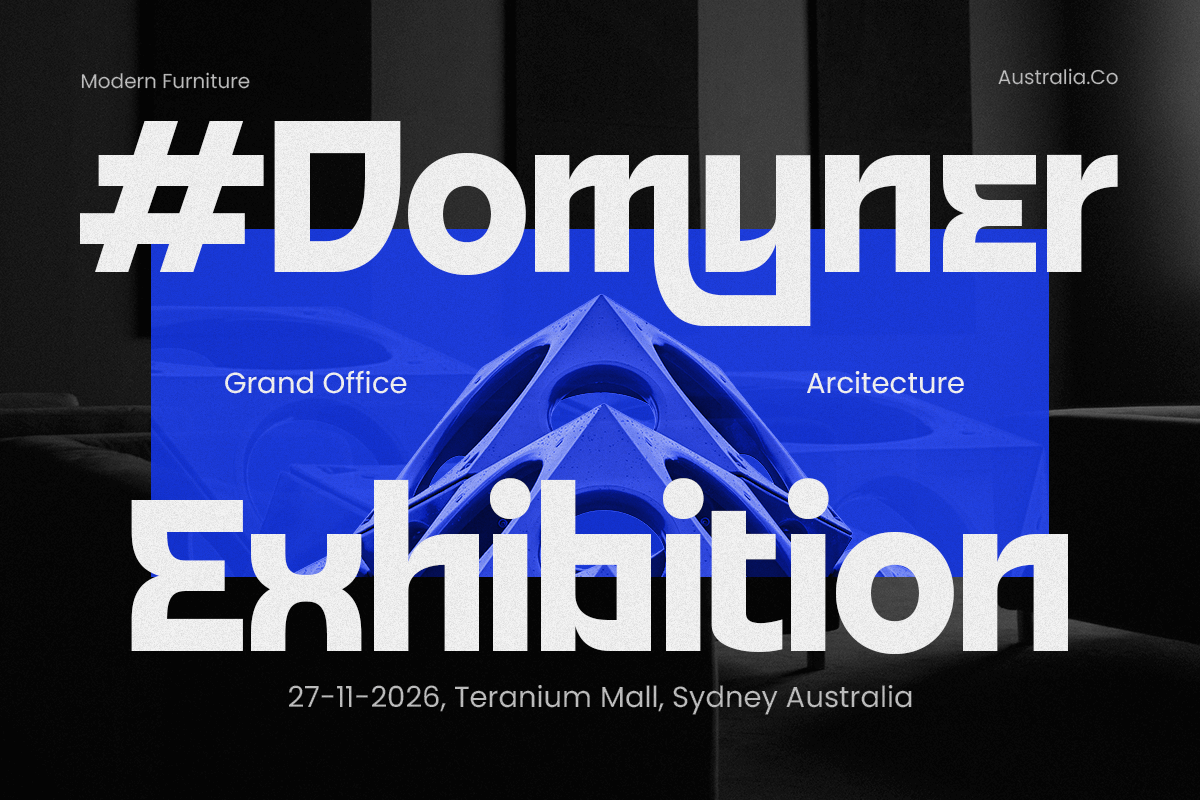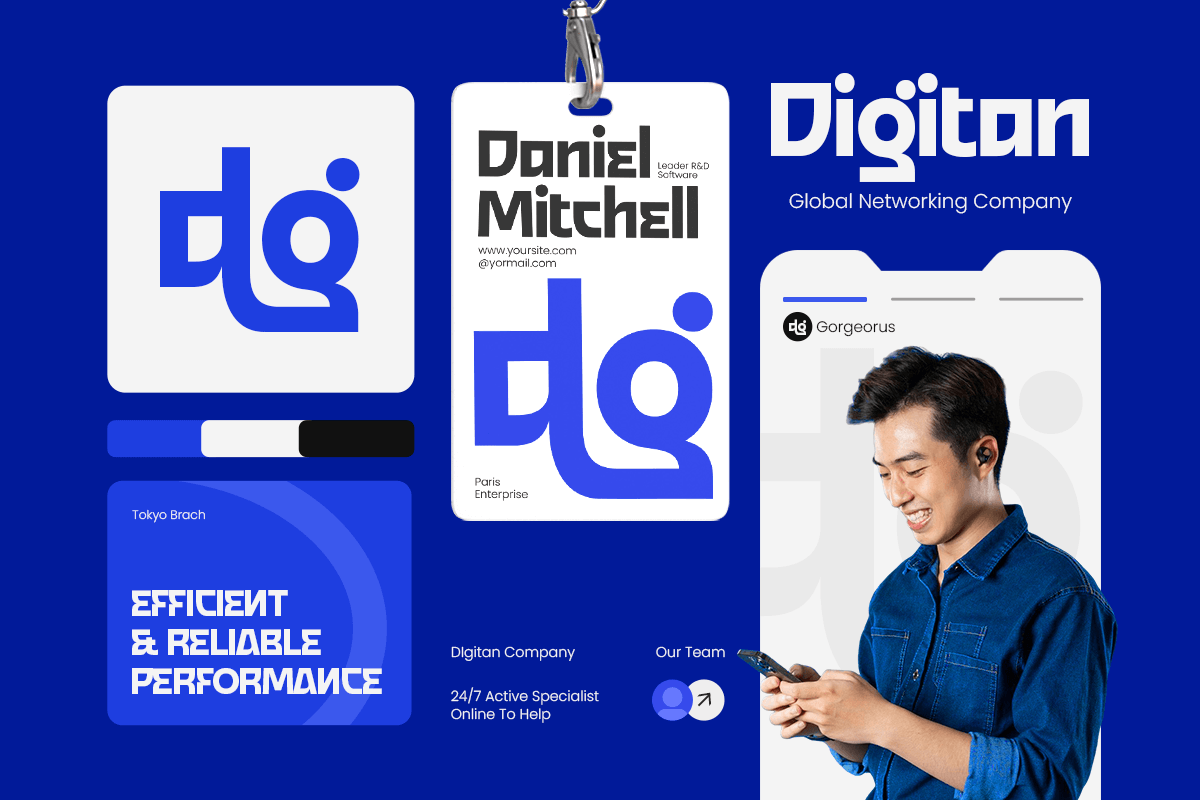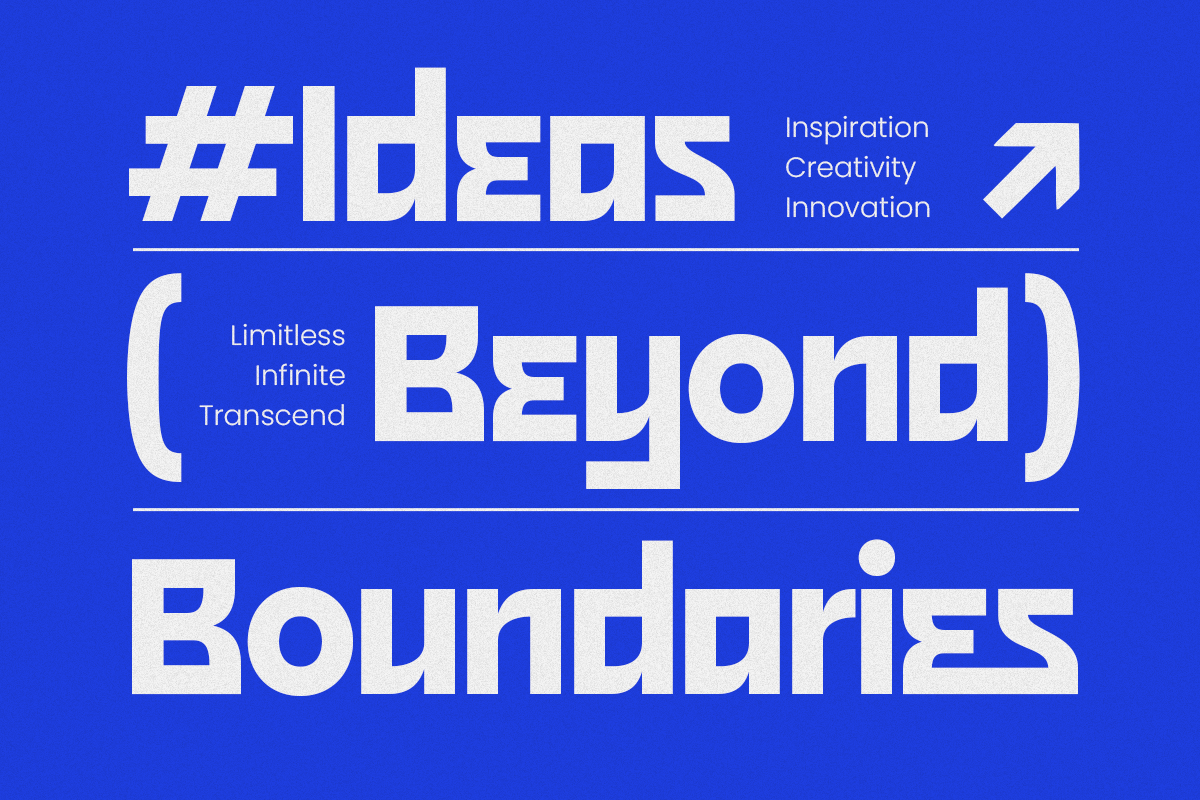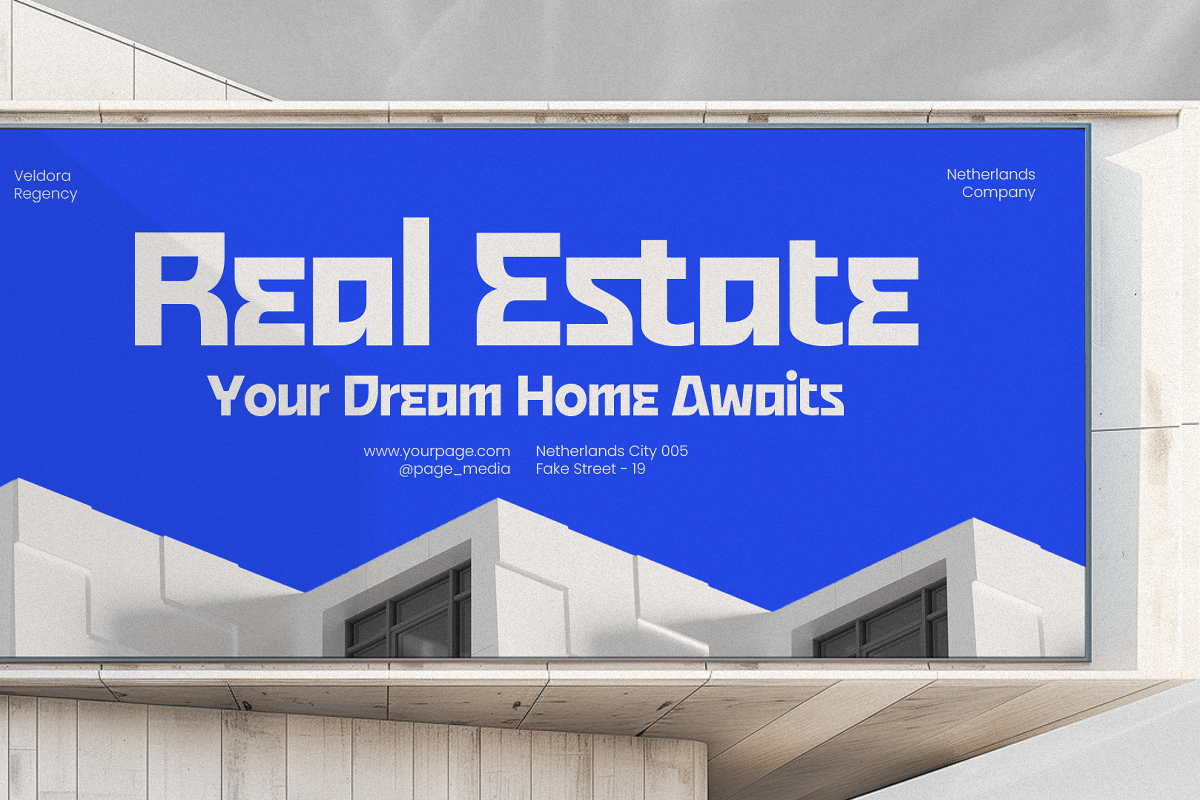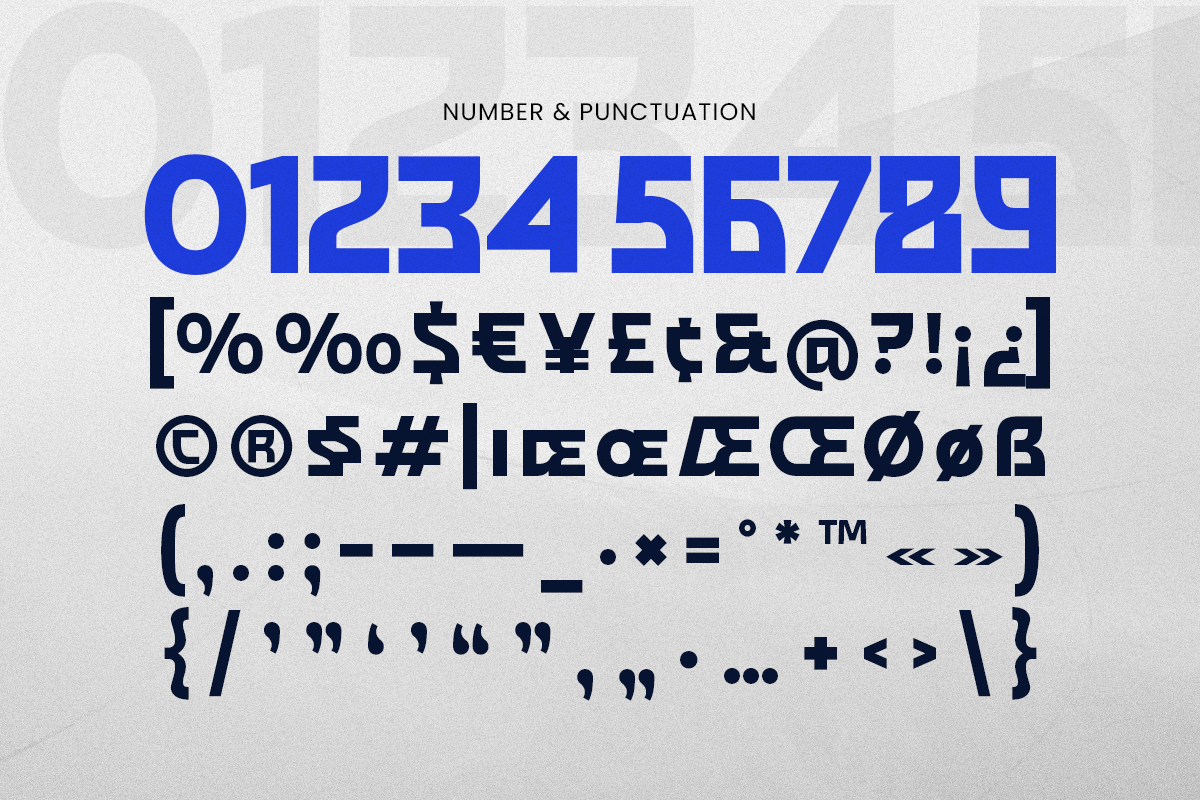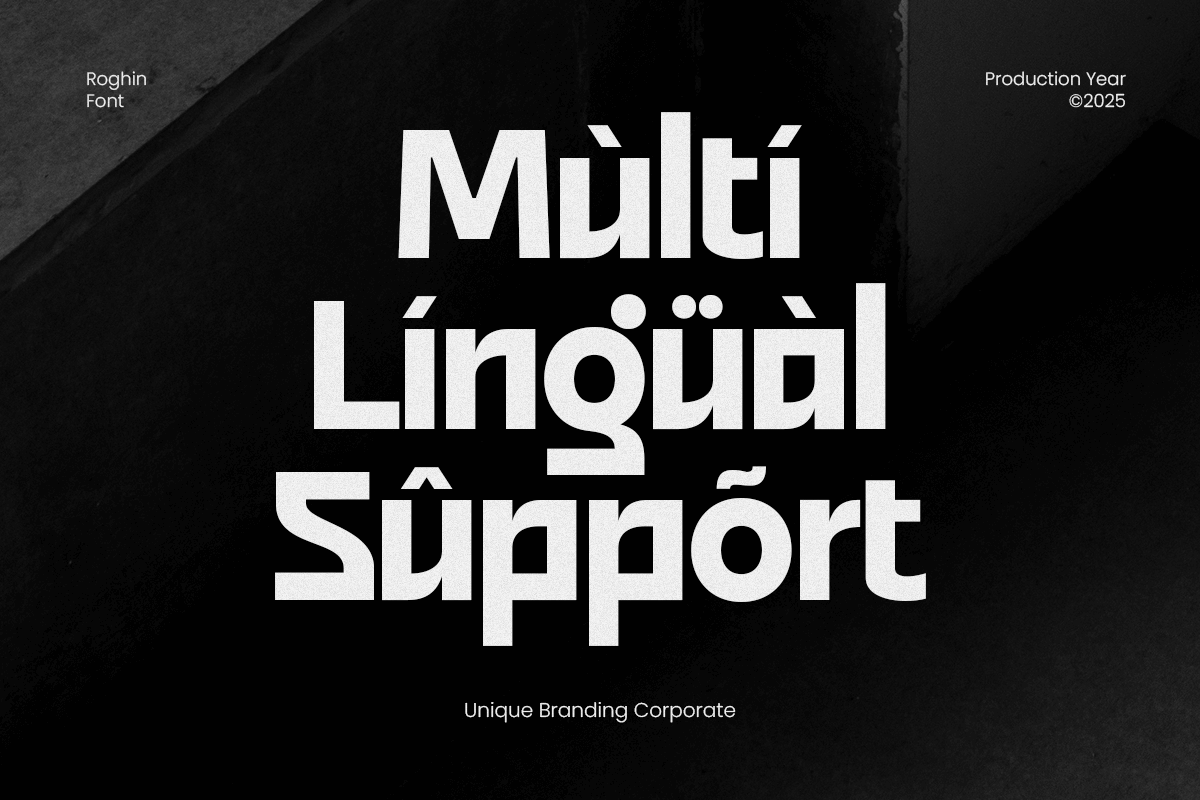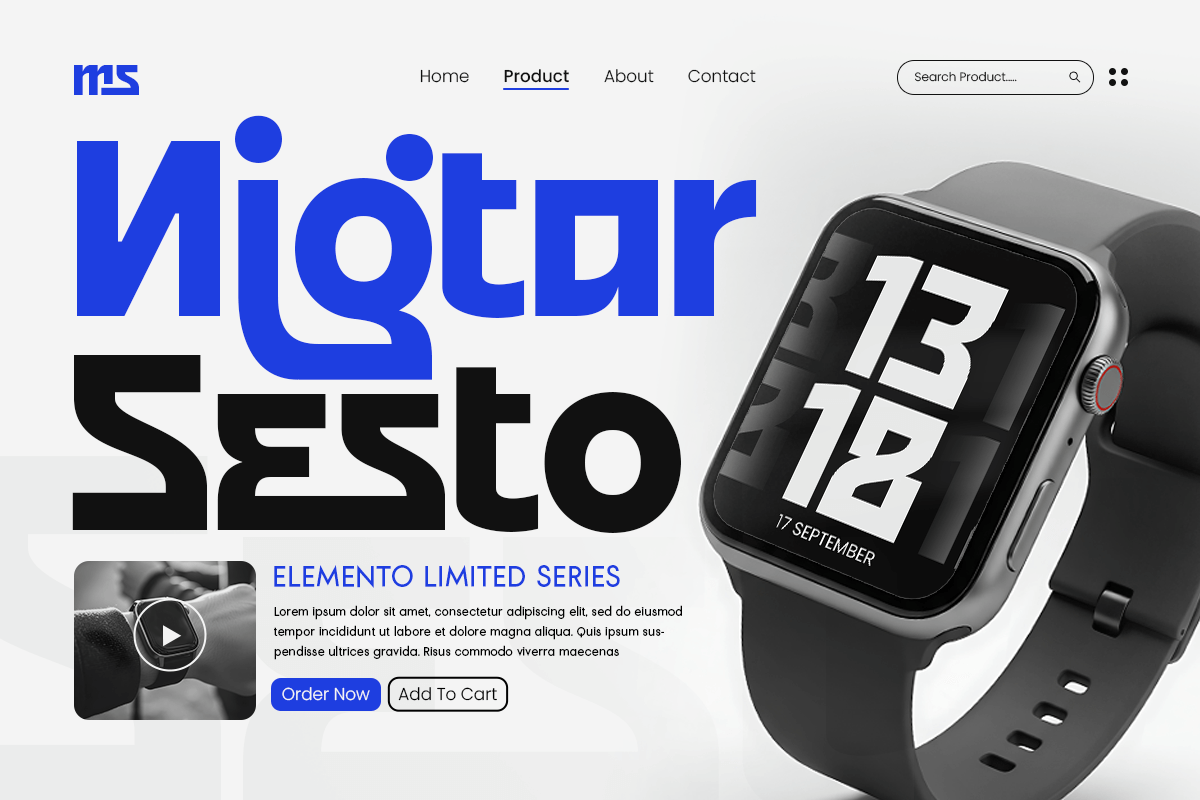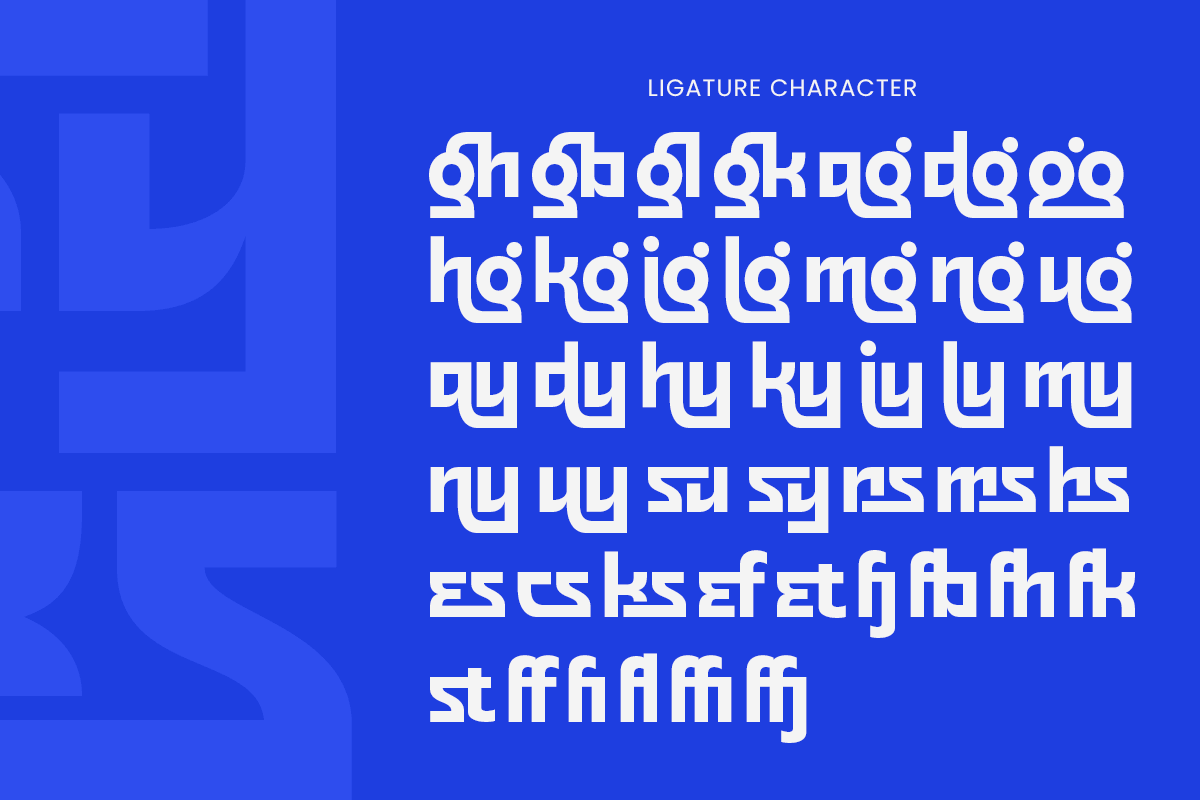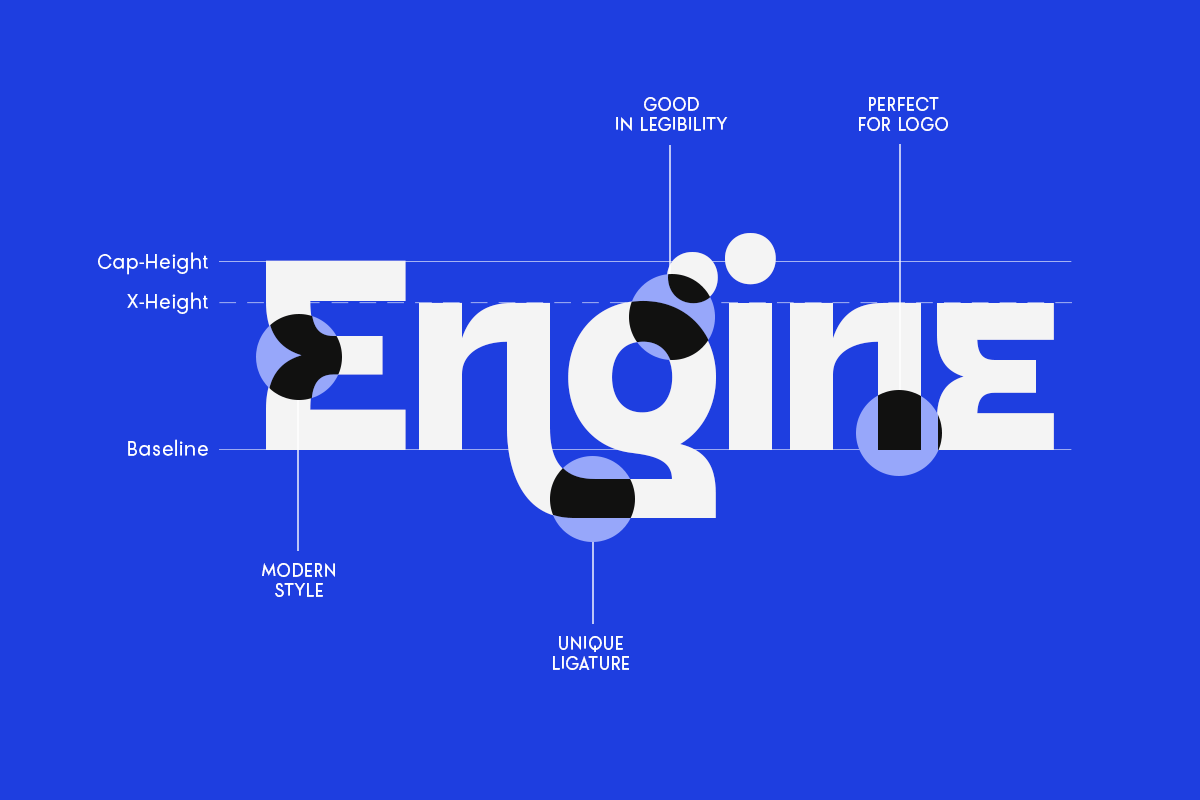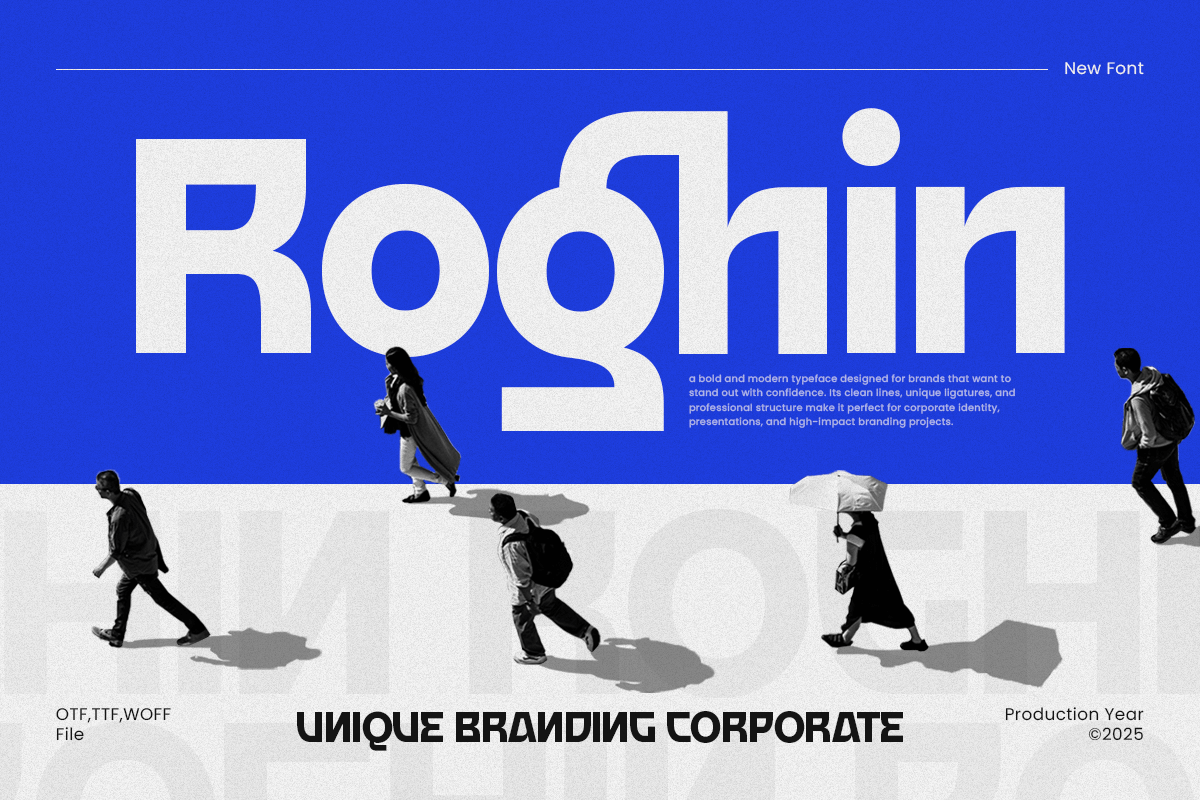
Roghin - Branding Corporate Font
Roghin – Unique Branding Corporate Font
Roghin is a professional and stylish sans-serif font crafted to elevate modern corporate branding and visual identity. With its clean lines, balanced proportions, and subtle uniqueness, Roghin offers a confident and contemporary feel perfect for logos, business presentations, marketing materials, and digital interfaces.
Designed for brands that value clarity and sophistication, Roghin brings a timeless yet distinctive look to every project. It combines professional structure with creative elegance, making it ideal for corporate agencies, startups, tech companies, and premium product branding.
Roghin – Unique Branding Corporate Font Features:
\* Modern and clean sans-serif design for professional branding
\* Ideal for logos, corporate identities, presentations, and marketing visuals
\* Includes uppercase, lowercase, numerals, and punctuation
\* Excellent legibility for both print and digital projects
\* Perfect balance between elegance, strength, and simplicity
Enhance your brand presence with Roghin – a unique corporate font that defines modern professionalism and lasting impression.